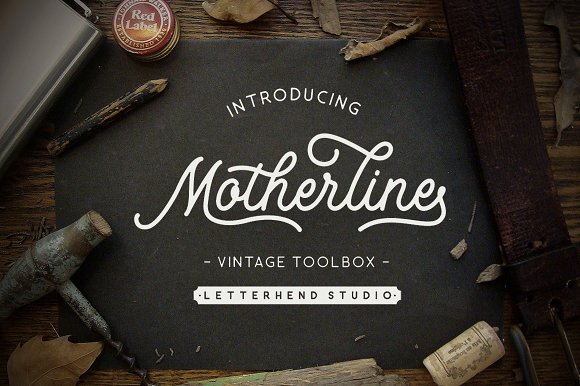
Motherline Font
This nurturing and warm typeface is perfect for maternity clinic branding, family healthcare services, parenting blog headers, children's product packaging, family restaurant signage, maternal wellness centers, childcare facility logos, family counseling services, and mother-child activity programs that require a caring, maternal aesthetic.
Motherline Font brings excitement to design projects with its gentle, embracing character and maternal warmth that captures the essence of unconditional love and protective care. The font features soft, rounded letterforms with flowing connections that evoke feelings of comfort, security, and nurturing support. Its maternal sophistication and caring presence make it an exceptional choice for brands that want to communicate family values, protective care, and unconditional love in their heartfelt communications.
The Motherline Font family includes various nurturing styles: Light, Regular, Medium, Bold, Script, Condensed, and Heart versions. Each variant maintains the font's distinctive maternal character while providing designers with complete flexibility for creating caring family branding systems. The family also features family-inspired ornaments, heart-shaped decorative elements, nurturing ligatures, and protective symbols that enhance the overall maternal aesthetic.
The font's maternal excellence includes carefully crafted soft curves that promote visual comfort, gentle spacing that creates emotional harmony, and thoughtful variations that maintain personal warmth while ensuring professional credibility. Whether you're designing for healthcare providers, family services, or child-focused organizations, this font delivers the caring touch that builds trust with families seeking compassionate support and reliable care.